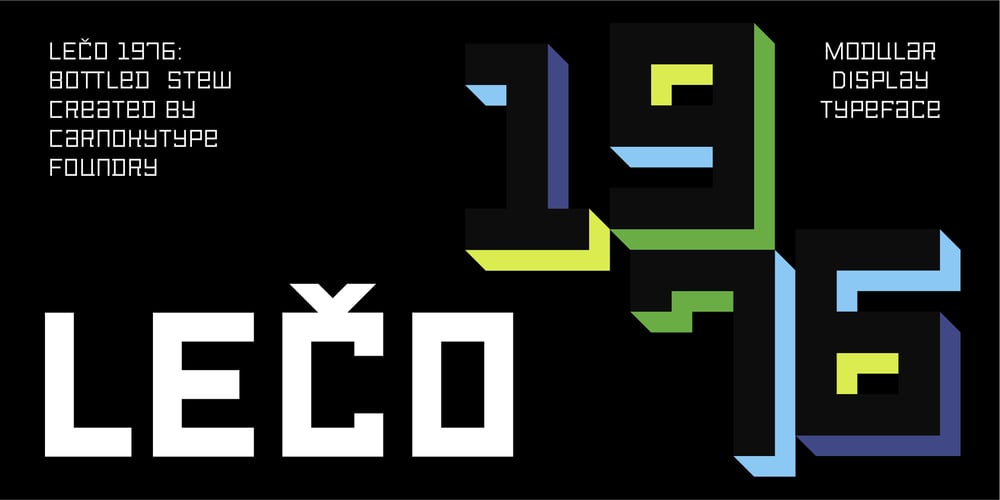
Leco 1976
Leco 1976 font
Leco 1976 Font Family was designed by Samuel Čarnoký and published by CarnokyType. Leco 1976 contains 10 styles and family package options. LECO 1976 is a headline display typeface in OpenType format. The title at the 1976 bottle of Lečo became an inspiration for creating this font. Besides the regular weight of the font, the font is drawn in light and bold font styles too, while each of these typefaces consists of a special alternative of an embedded diacritic. The font contains several specific styles as Stencil, Pixel, Tride, Shadow which combinations offer interesting possibilities for the typesetting. The metrics and kerning of every glyph of the font (except several glyphs in Bold) are identical. All the signs share the same character and size of the capital letters. This font is best used on strong posters or as a headline display typeface.